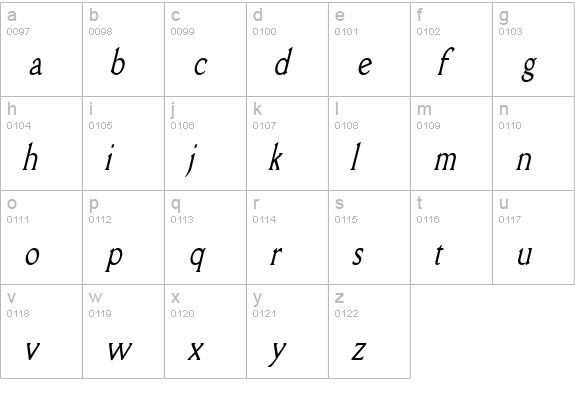
Rory Thin Italic is a delicate, low-contrast, italic variant in the Rory typeface family \xE2\x80\x94 well suited to fashion editorial, minimal branding, and high-contrast display.
Introducing Rory Thin Italic, a sleek and elegant font that exudes sophistication and modernity. With its slender letterforms and subtle slant, Rory Thin Italic is perfect for adding a touch of style to your designs. This font strikes the perfect balance between minimalism and flair, making it ideal for a wide range of creative projects. What's even better is that Rory Thin Italic is available for free download at FontsMarket.com. So whether you're working on a branding project, designing a website, or creating striking visuals, this font is a versatile choice that will elevate your work to the next level. Embrace the beauty of Rory Thin Italic and let your creativity shine with this stunning typeface.